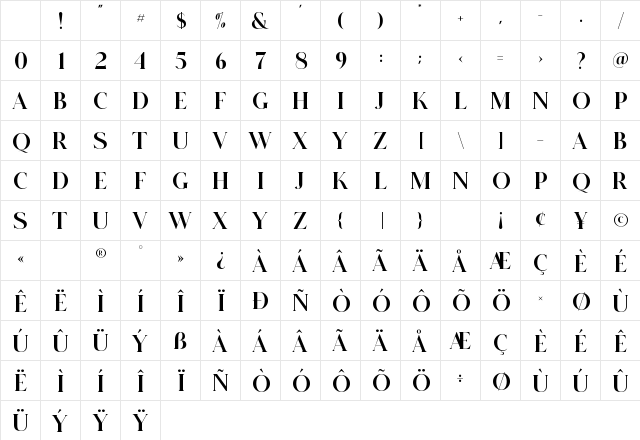
Complete GLITTEN ALL CAPS Regular glyph index. Displaying only characters natively supported by GLITTEN ALL CAPS Regular font.
GLITTEN ALL CAPS is a composed and adaptable typeface that performs quietly and consistently across a wide range of design contexts.